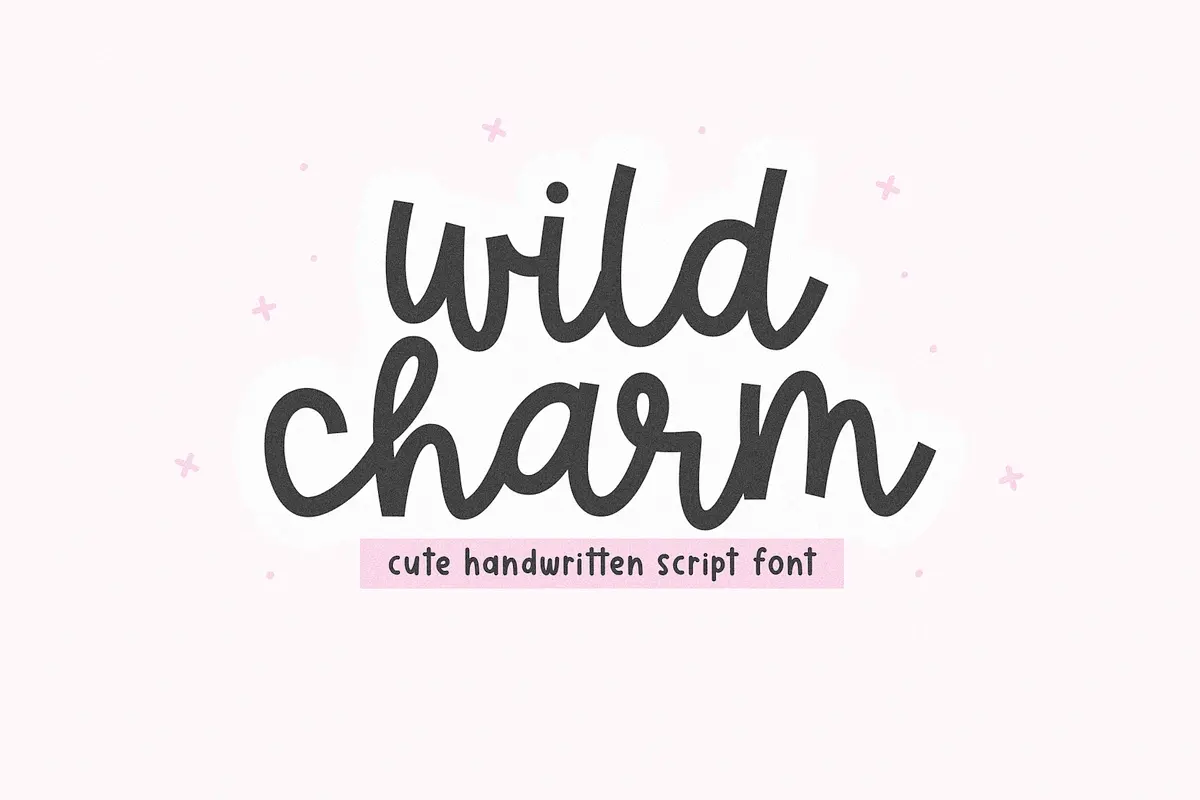
The Wild Charm | Cute Script Font Free Download is a playful and stylish typeface designed to add a touch of fun and elegance to your designs. With its smooth, flowing strokes and adorable, handwritten feel, this script font is perfect for creating logos, invitations, branding, and social media graphics. Whether you're working on a personal project, a children’s brand, or a creative campaign, Wild Charm adds a unique and charming flair to your work.
Wild Charm | Cute Script Font Free Download is ideal for designers looking to create soft, charming typography with a touch of personality. Perfect for invitations, greeting cards, branding, and more, this font will bring a whimsical and sweet vibe to your designs. Download it today and infuse your projects with its cute, handwritten elegance!